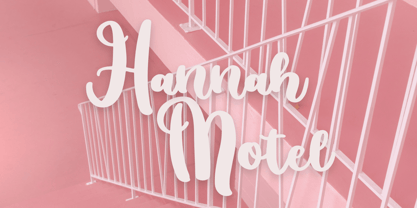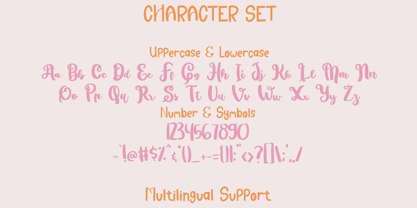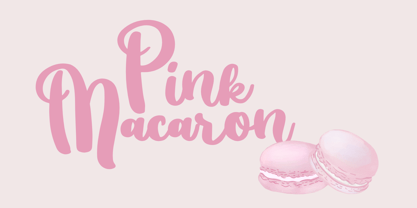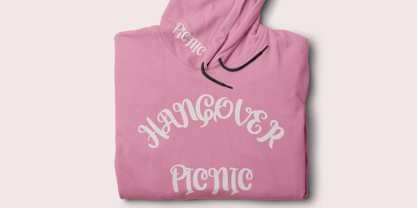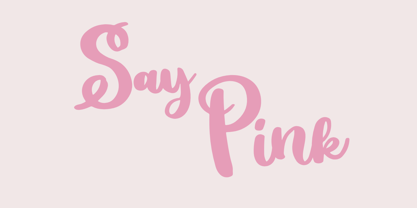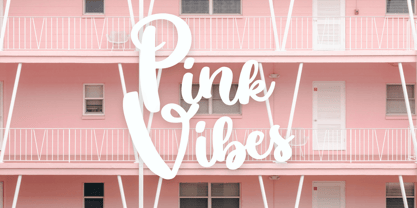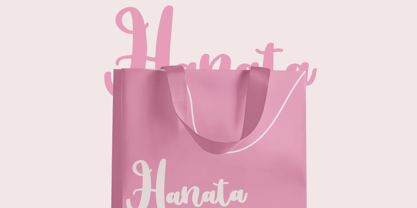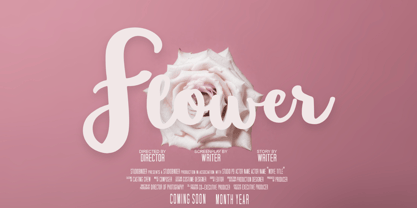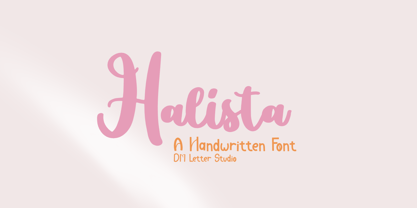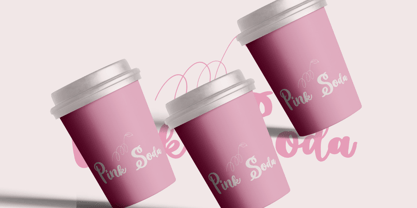
Halista
by DM Studio
The Halista Font Family was designed by Dimas Prasetyo and published by DM Studio. Halista contains 1 styles.
Halista is a charming handwritten font with a soft, flowing character and an effortless natural feel. Designed to mimic casual penmanship, it brings warmth and personality to any creative project. Whether you’re designing logos, quotes, or wedding invitations, Halista adds a graceful, handcrafted touch that feels both elegant and approachable. Features: Natural Handwriting Flow: Smooth strokes and a relaxed rhythm make this font feel authentically handwritten. Casual Yet Elegant: Perfectly balanced to work in both playful and refined design settings. Lowercase-Focused Design: Rounded, organic forms that pair beautifully with all-caps accents. Ideal For: Quotes, logos, wedding invitations, greeting cards, branding, Instagram posts, and DIY Cricut projects.
Halista
About DM Studio